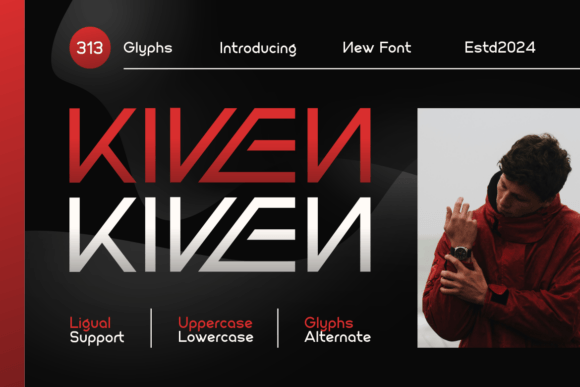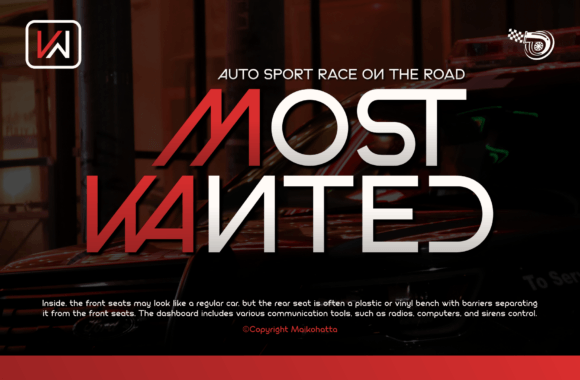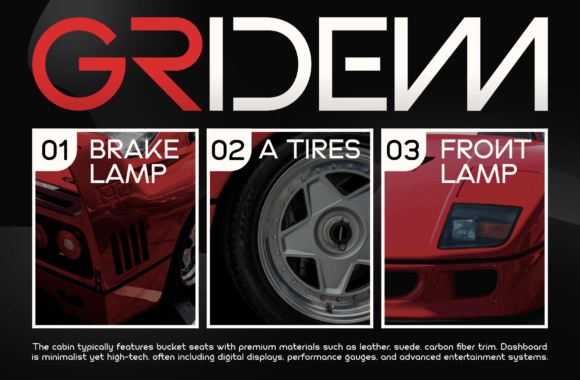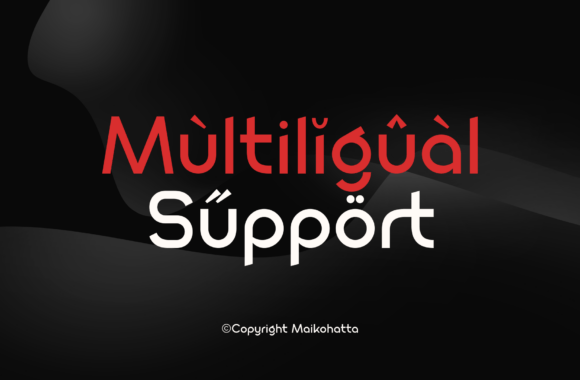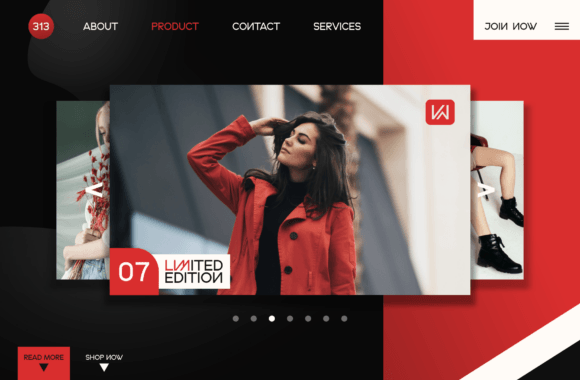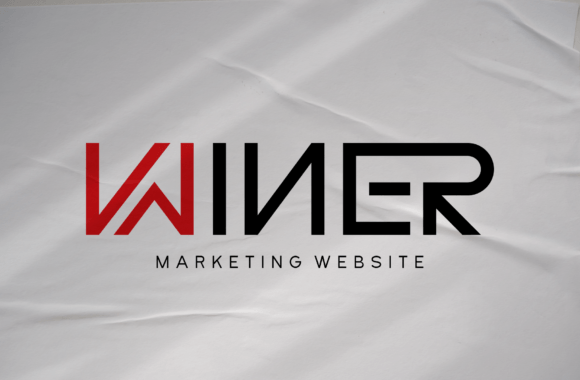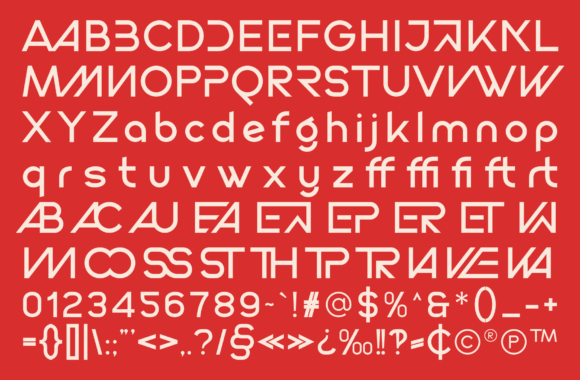
Unlocking the Power of Modern Typography
Remember that moment when you’re staring at a blank page, trying to bring your design vision to life? You’re not alone. As creatives, we’ve all been there – searching for the perfect font to set our message apart. That’s where Kiven Font comes in – a modern sans serif display font designed to elevate your designs to new heights.
With its clean lines, professional aesthetic, and versatility, Kiven Font is the perfect choice for designers looking to add a touch of sophistication to their projects. Whether you’re working on a logo, brochure, or website, this font is sure to make a lasting impression. Its simplicity and visual appeal make it an invaluable asset in the world of graphic design, and we can’t wait to see what you create with it.
Kiven Font Key Features
- Font Family: Kiven Font is a sans-serif font family.
- Unique Characteristics: Features a unique blend of modern and minimalist design elements, with a focus on legibility and readability.
Kiven Font Review
I recently had the chance to work with Kiven Font, and I’m excited to share my honest thoughts about this font.
- The font has a unique, modern aesthetic that’s perfect for contemporary designs.
- The letterforms are well-spaced and legible, making it easy to read.
- The font is highly versatile and can be used for a wide range of applications, from headlines to body text.
- The font may not be suitable for very small sizes, as the letterforms can become pixelated.
- The font lacks a bold weight, which may limit its use in certain contexts.
- The font’s ligatures can be inconsistent, leading to some awkward letter combinations.
Overall, I think Kiven Font is a solid choice for designers looking for a modern, versatile font. While it has some limitations, its unique aesthetic and legibility make it a great addition to any design library.
Kiven Font is ideal for creating modern, minimalist designs, such as logos, business cards, and social media graphics. To get the most out of this font, use it in combination with simple, clean graphics and bold colors. Experiment with different font sizes and styles to create visual interest and hierarchy.
Alternatives to Kiven Font
Raleway
Raleway is a popular sans-serif font that is highly legible and versatile. It is suitable for use in body text, headings, and titles. Raleway is a great alternative to Kiven Font for designers who want a clean and modern look. It has a similar feel to Kiven Font but with a more rounded and elegant touch.
Montserrat is a geometric sans-serif font that is perfect for urban and modern designs. It is highly legible and works well in small sizes. Montserrat is a great alternative to Kiven Font for designers who want a bold and edgy look. It has a more angular feel than Kiven Font, making it suitable for use in headings and titles.
Lato is a modern sans-serif font that is highly legible and versatile. It is suitable for use in body text, headings, and titles. Lato is a great alternative to Kiven Font for designers who want a clean and elegant look. It has a similar feel to Kiven Font but with a more refined and sophisticated touch.
Open Sans is a popular sans-serif font that is highly legible and versatile. It is suitable for use in body text, headings, and titles. Open Sans is a great alternative to Kiven Font for designers who want a clean and modern look. It has a similar feel to Kiven Font but with a more neutral and straightforward touch.
Exploring the Kiven Font: Creative Project Ideas
Project 1: Whimsical Journal Cover
Create a unique and eye-catching journal cover using the Kiven Font. This font’s unique characteristics and flair make it perfect for a whimsical design.
Q: Can I customize the Kiven Font for a specific project?
Yes, the Kiven Font is a highly customizable typeface. You can adjust the font’s weight, width, and other properties using OpenType features. Additionally, you can use font editing software to create custom variations of the font.